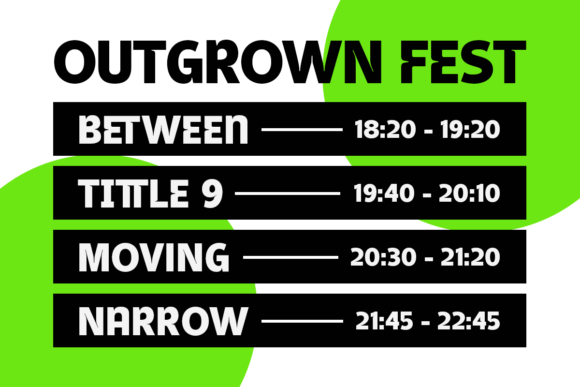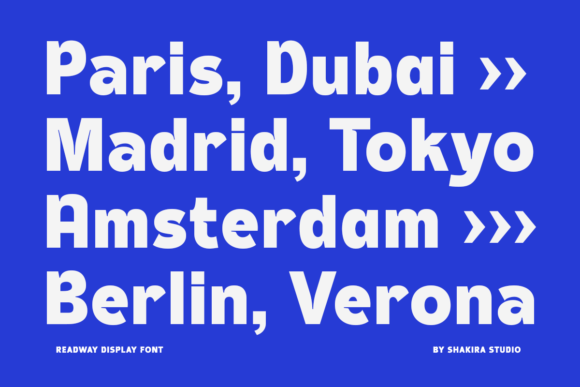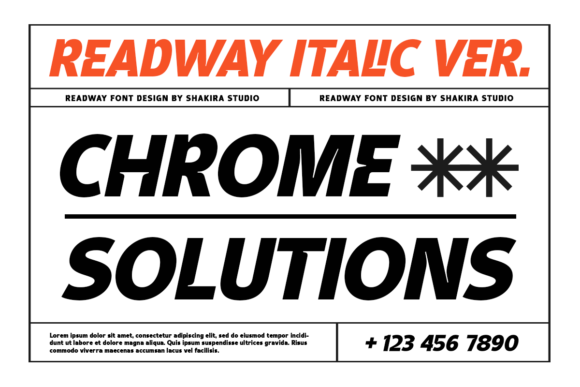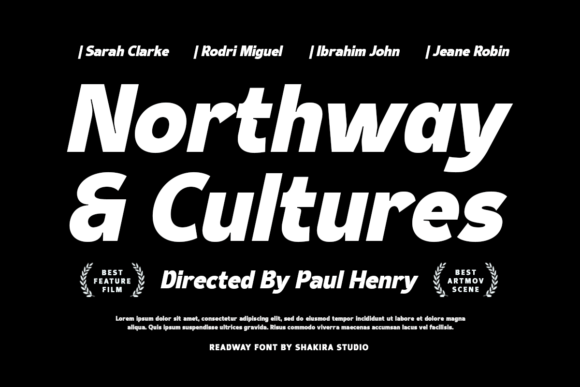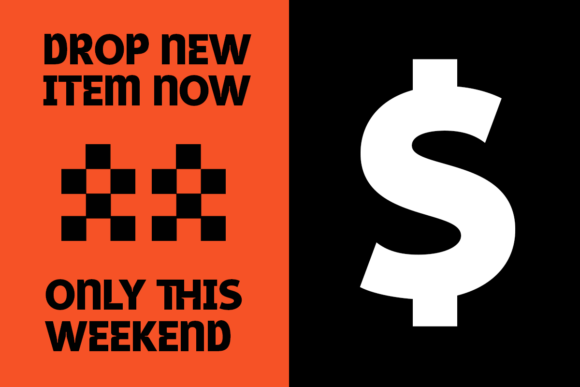
Introduction to Readway Font
Introducing Readway, a modern Display Sans Serif font that boasts bold and unique characters.
| 👤 Author | Shakira Studio |
Perfect for grabbing attention in your designs, Readway comes in both regular and italic versions, providing versatility for various creative projects Whether used for headlines, posters, or branding, this font stands out with its contemporary flair and strong presence.
Key Features of Readway Font
Why Choose Readway Font?
Readway Font offers exceptional quality and versatility, making it a valuable addition to your design toolkit. Whether you’re creating for personal projects or commercial use, Readway Font delivers professional results.